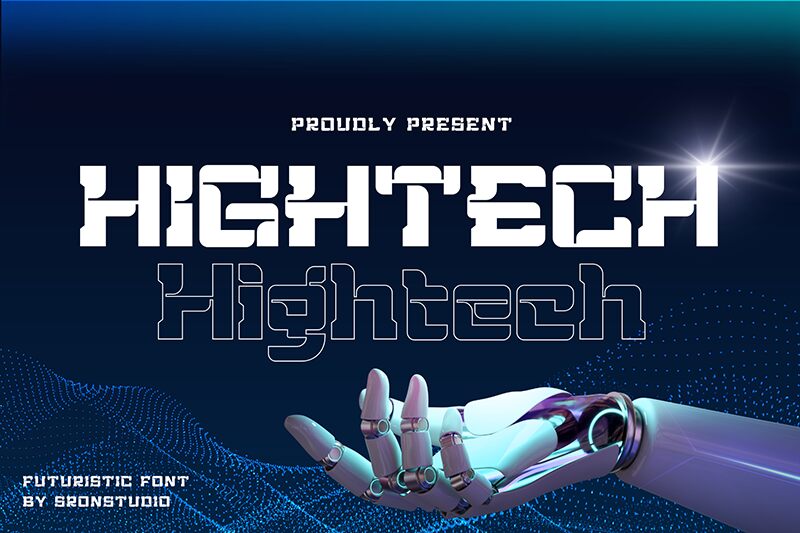
Hightech
Hightech font by Sronstudio is a free futuristic display typeface that looks like it was carved from glossy, modular panels. Chunky, squared forms with tight inner curves create a bold, tech-forward rhythm that reads instantly as “sci-fi” without feeling flimsy or gimmicky. The letters lock together like components of a sleek device, giving your titles a strong, engineered presence that still feels smooth and approachable.
Using Hightech, this free font shines on game logos, esports branding, sci-fi movie posters, app splash screens, tech event banners, and bold social media graphics. Its heavy weight and compact shapes command attention in short headlines and wordmarks, especially when set large with plenty of breathing room. Pair this futuristic typeface with a simple geometric sans for body text, and let Hightech handle the loud, high-impact moments.